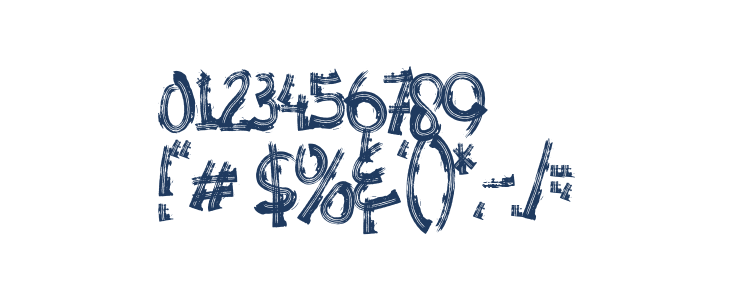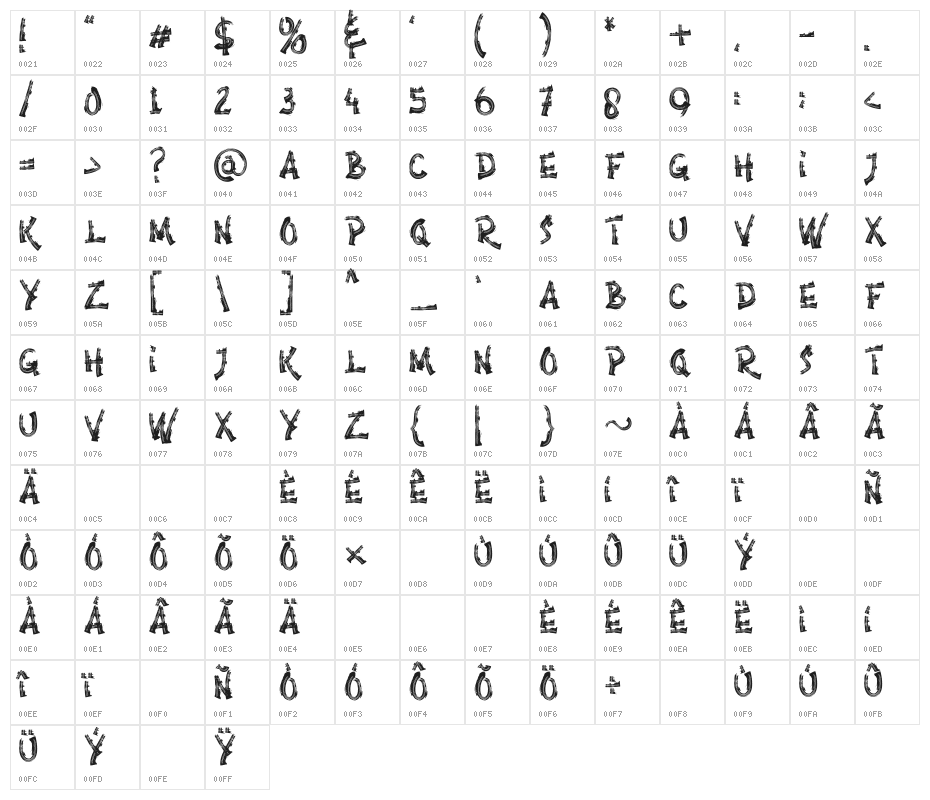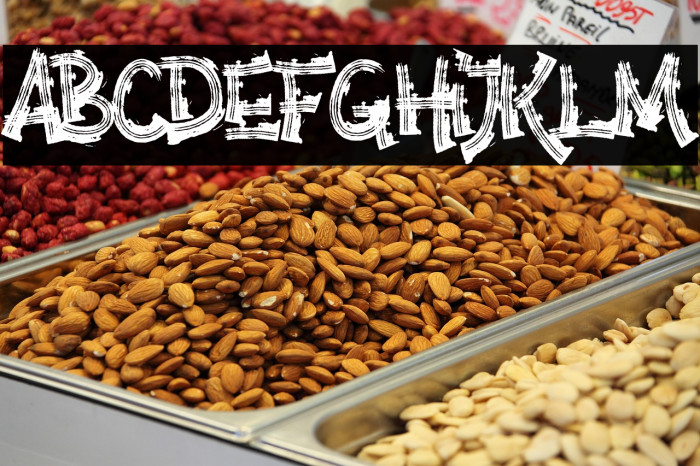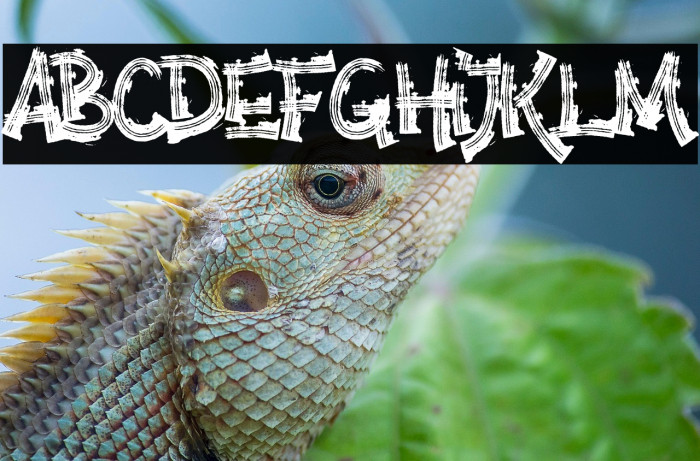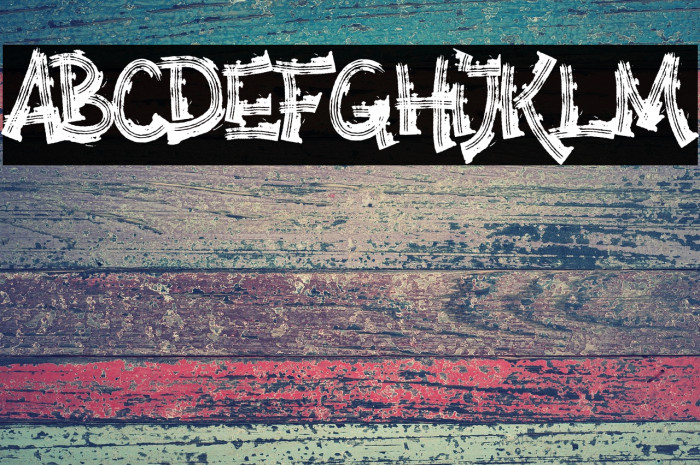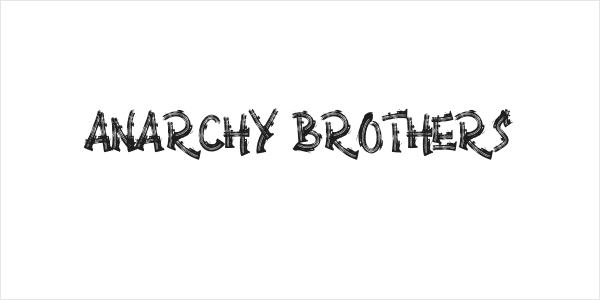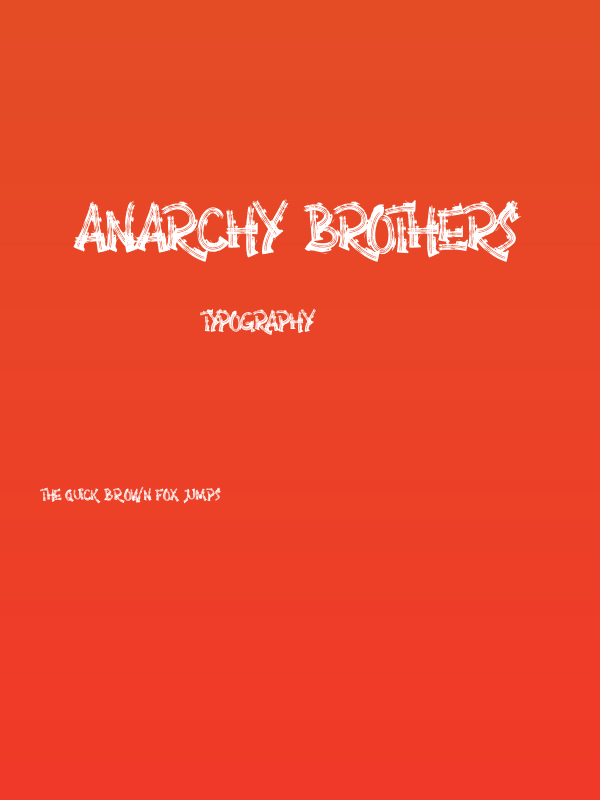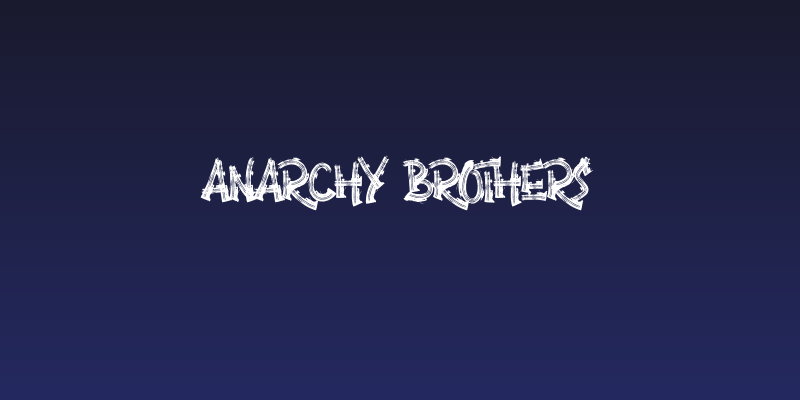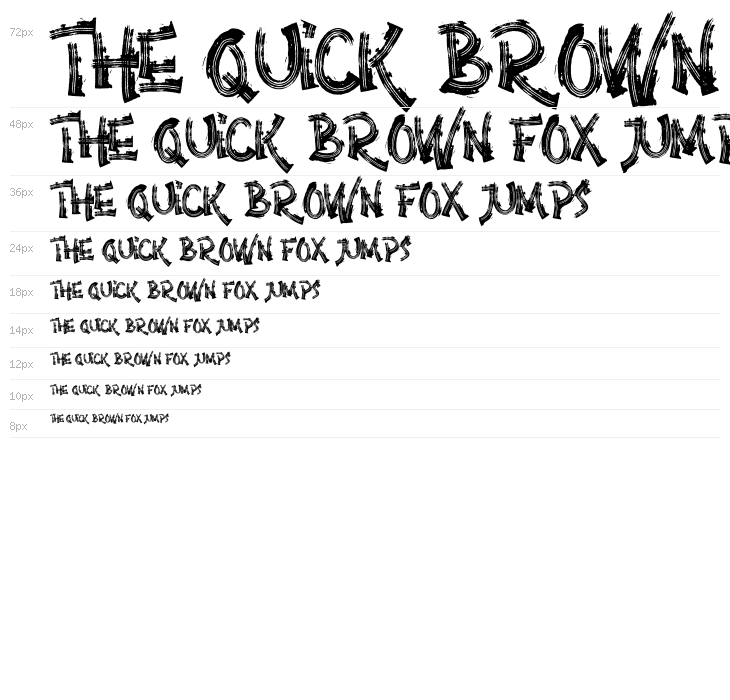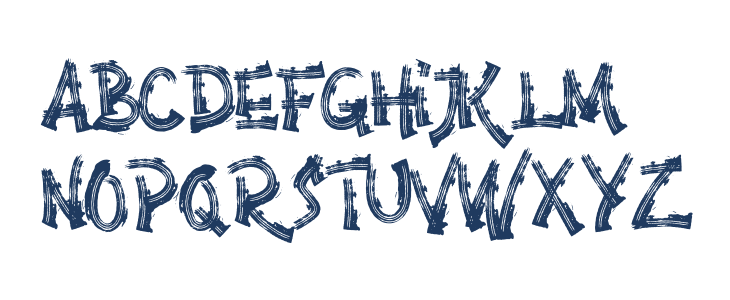
Anarchy Brothers Font
Anarchy Brothers Description
This font exudes a raw, rebellious energy with its brushstroke style and uneven edges. Each character is crafted with a sense of urgency and chaos, giving it a hand-drawn appearance. The strokes are bold and dynamic, creating a sense of movement and intensity. The irregularities in the letterforms add to its anarchic feel, making it perfect for projects that require a bold statement. The font's unique style is both eye-catching and memorable, making it suitable for creative and unconventional designs.